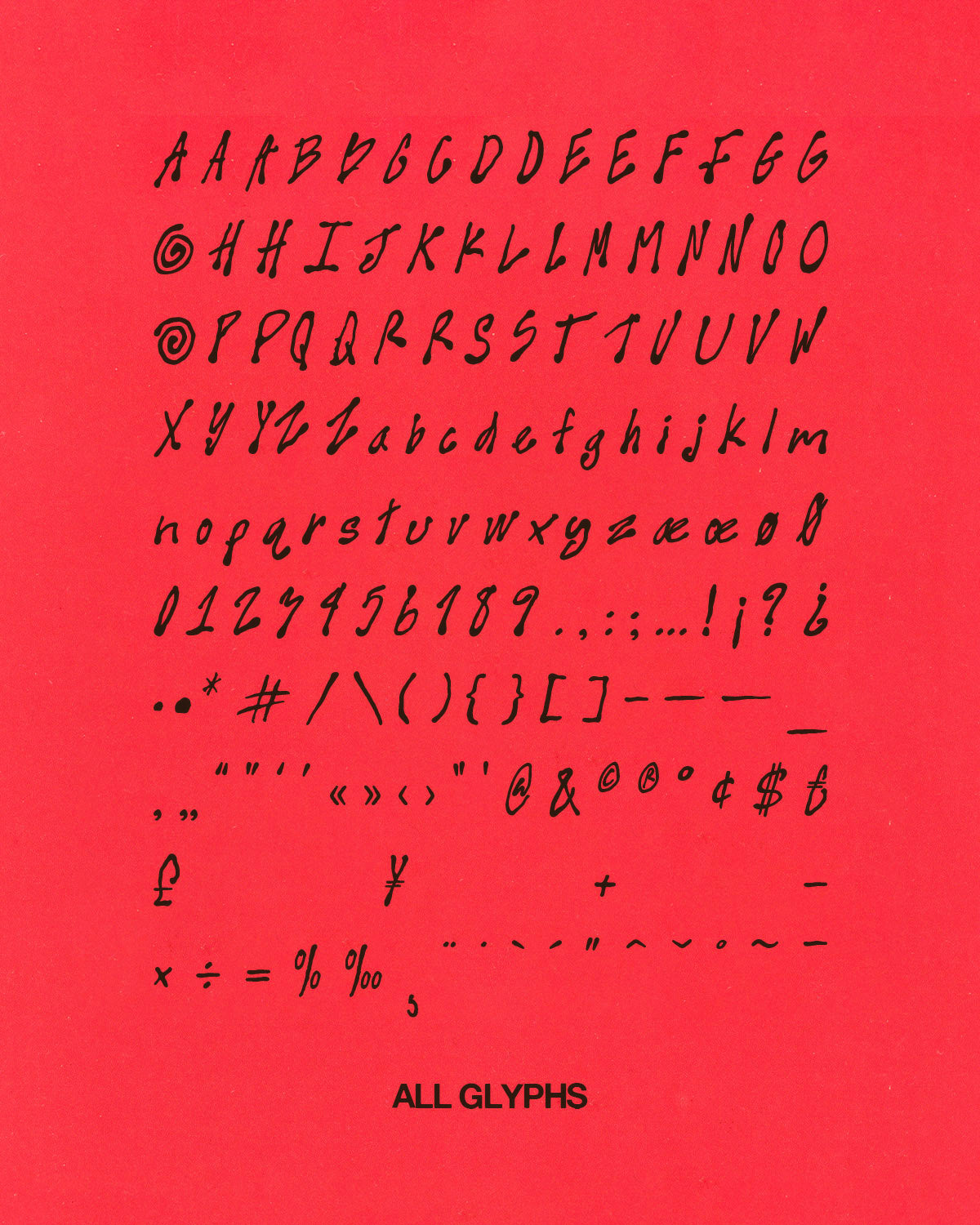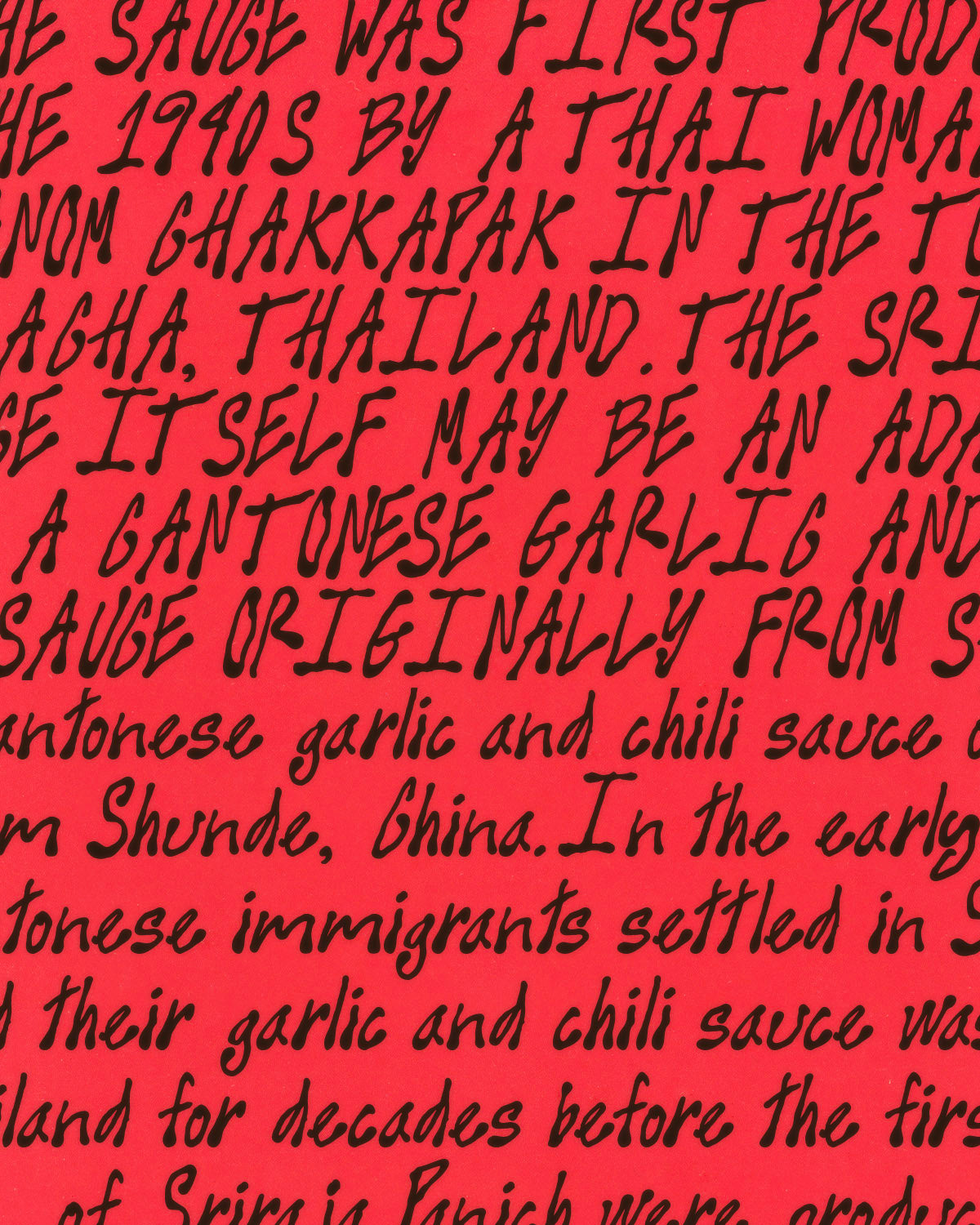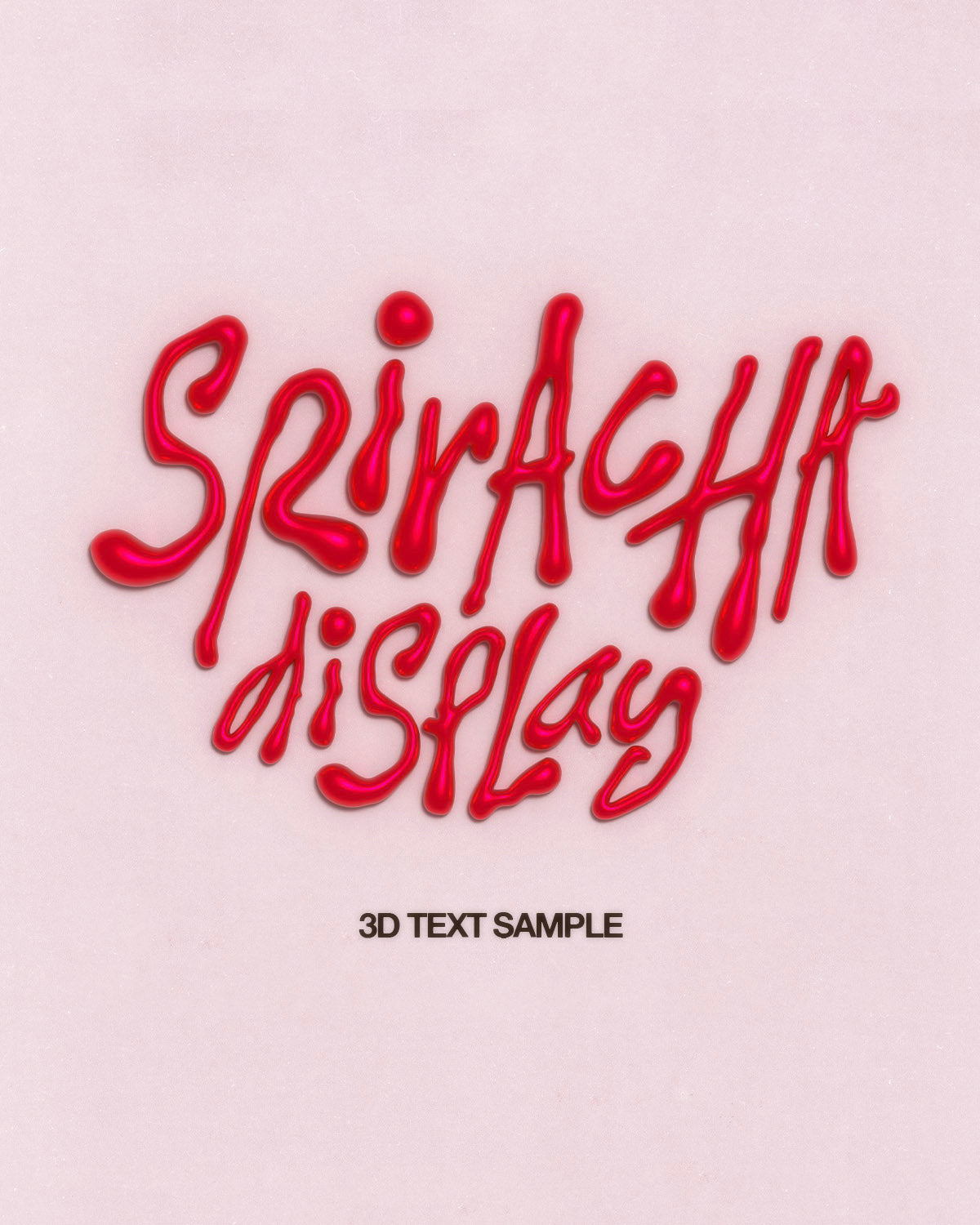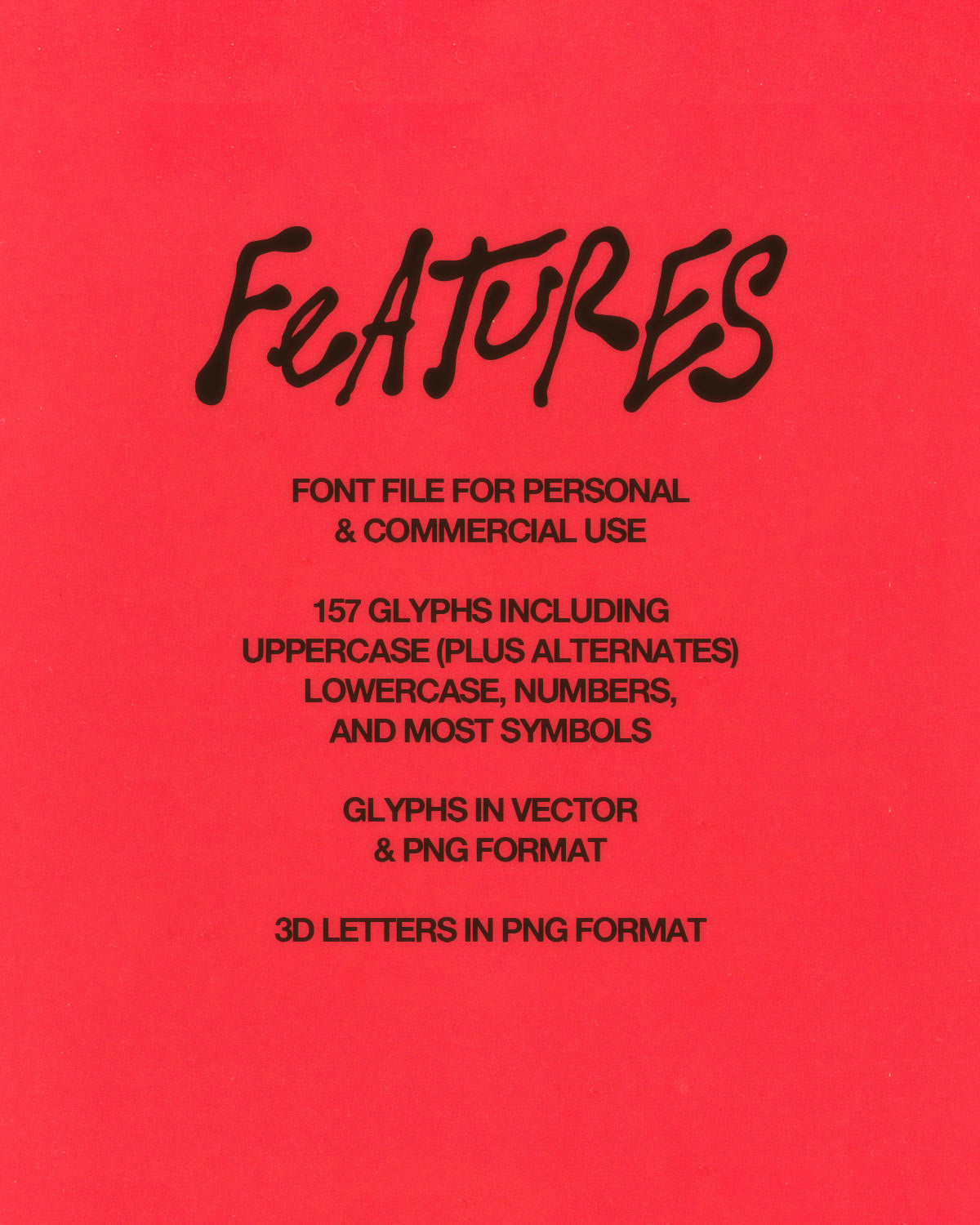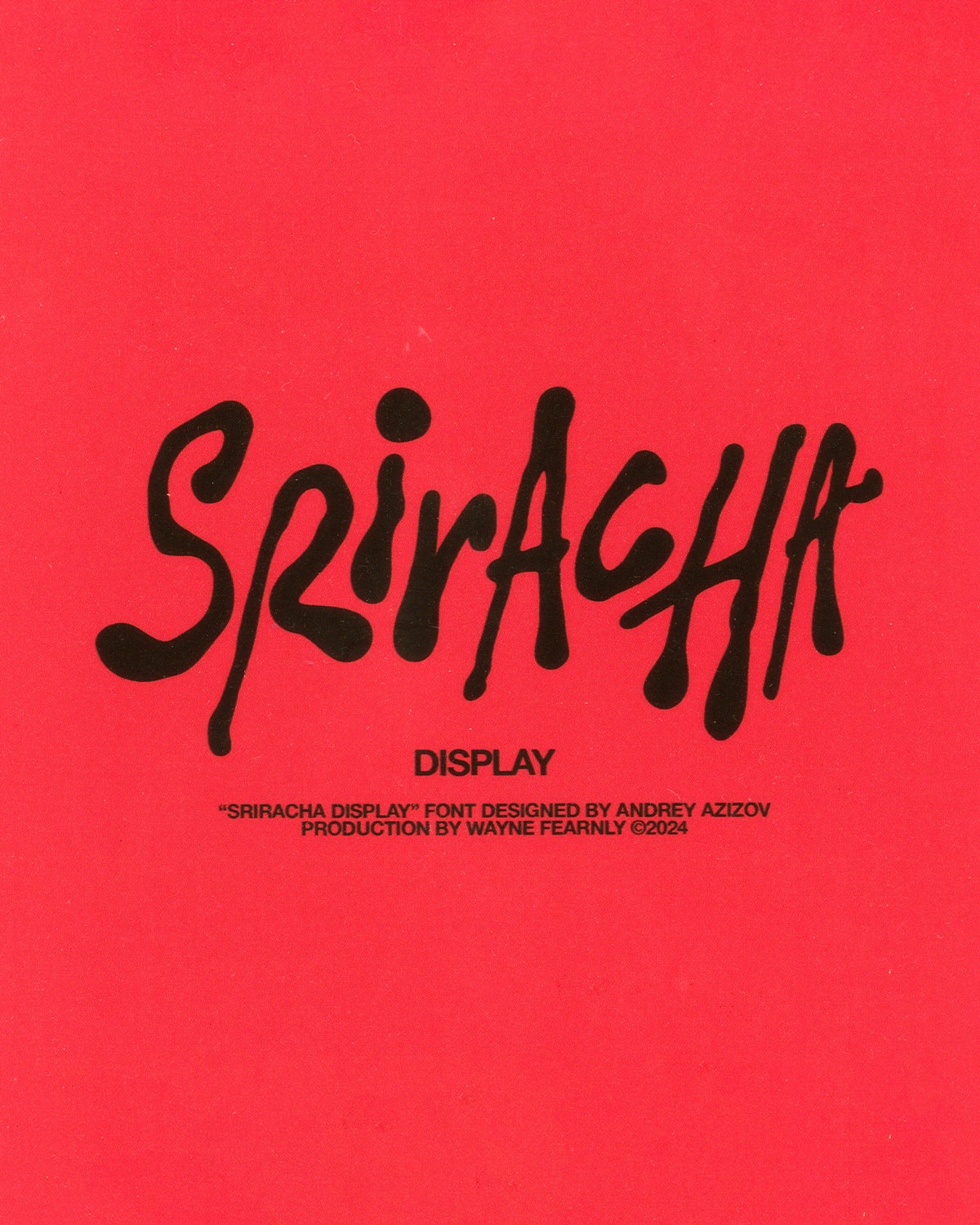
Sriracha Display Font
- 157 Glyphs
- Uppercase (plus alternates)
- Lowercase
- Numbers
- Most symbols
The sriracha font is here! After some viral poster designs I made using sriracha writing I decided to turn it into a font. I bought a few bottles and went up to my roof in what can only be described as a spicy science experiment. After hours of work and teary eyes I had a font’s worth of letters that I digitized and edited to make them as beautiful and useful as possible. I’ve included the font as well as each individual glyph in a few formats so you can individually place them, which is where I think this font shines! Tag me in your designs i’d love to see what you make, stay spicy 🌶️